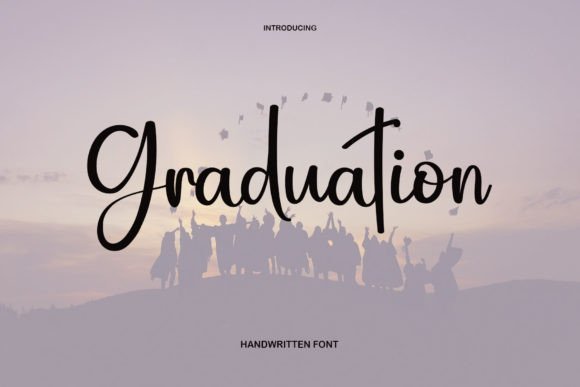
The Perfect Script: Unveiling Graduation Font
There’s something magical about the moment you’re brainstorming a new design project, and the perfect font suddenly pops into your mind. It’s like the missing piece of the puzzle, elevating your concept from good to great. For designers, finding that elusive font can be a game-changer. And, if you’re anything like us, you’re always on the lookout for the next big thing.
Enter Graduation Font, a stunning handwritten font that exudes a contemporary atmosphere and impeccable form. Inspired by the timeless classic calligraphy, Graduation Font is the perfect addition to any design project seeking elegance and class. Whether you’re crafting a logo, a wedding invitation, or a marketing campaign, this versatile font is sure to impress.
What sets Graduation Font apart is its adaptability and sophistication, making it a valuable asset for designers of all levels. With its unique blend of style and functionality, you can trust that this font will elevate your designs to new heights.
Key Features of Graduation Font
- Unique Characteristic: Graduation Font features a unique, hand-drawn design with subtle variations in letterform and spacing, giving it a distinctive, human touch.
Graduation Font Review
Overall, I’m impressed with the Graduation Font, and here’s why:
- ✨ Unique design: The font has a distinct, celebratory feel that’s perfect for graduation invitations, certificates, and other special occasions.
- ✨ Versatility: Graduation Font is available in various weights and styles, making it suitable for a range of applications, from formal to informal.
However, there are some limitations:
- ⚠️ Limited language support: Graduation Font may not be suitable for languages that require a wide range of characters, such as Chinese or Arabic.
- ⚠️ Not ideal for body text: While the font is great for headings and titles, it may be too ornate for large blocks of body text.
Overall, I think Graduation Font is a great choice for designers who need a unique, celebratory font for special occasions. While it may have some limitations, its unique design and versatility make it a valuable addition to any designer’s toolkit.
Tips for Getting the Most Out of Graduation Font
To get the most out of the Graduation Font, use it to create visually appealing headings and titles. The font’s bold, cursive style makes it perfect for adding a touch of elegance to your designs. You can also use it to create a sense of continuity throughout your project by using it consistently.
The Graduation Font is perfect for creating graduation announcements, certificates, and other celebratory materials. It’s also great for creating eye-catching titles and headings for presentations and reports. Additionally, the font can be used to create a sense of whimsy and playfulness in designs such as invitations and party decorations.